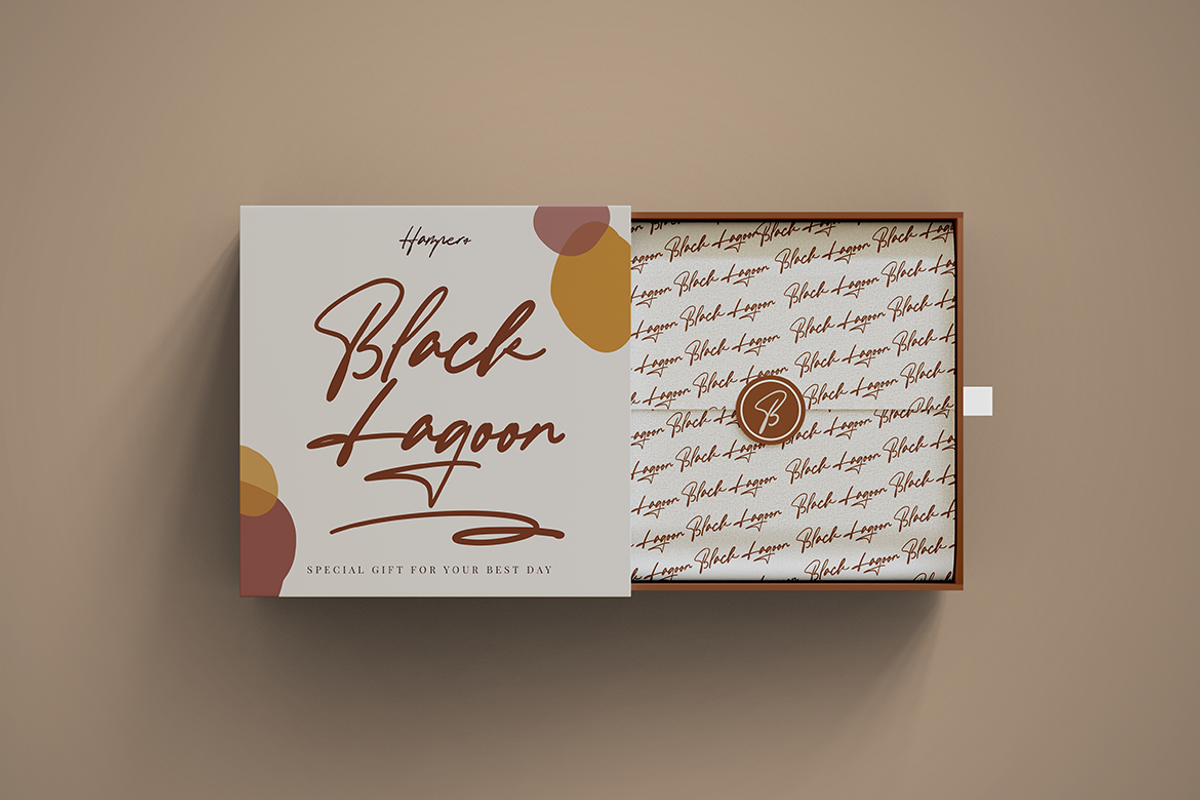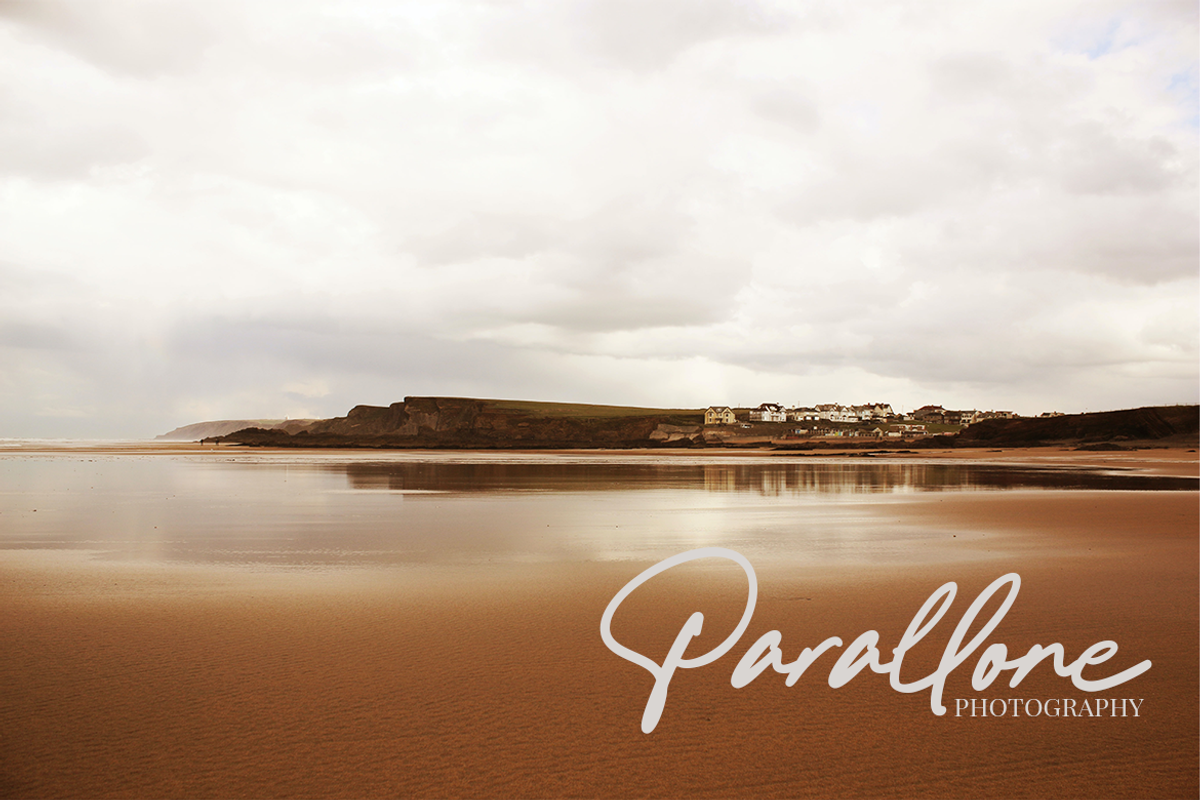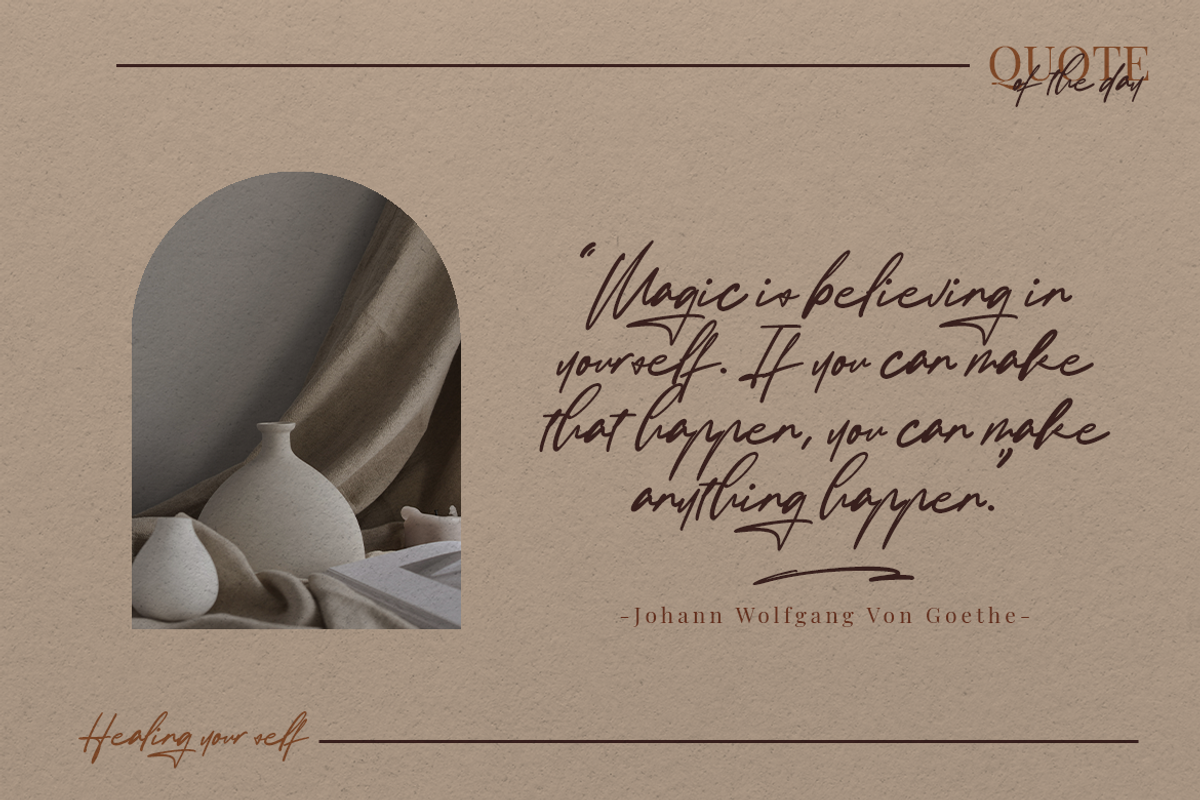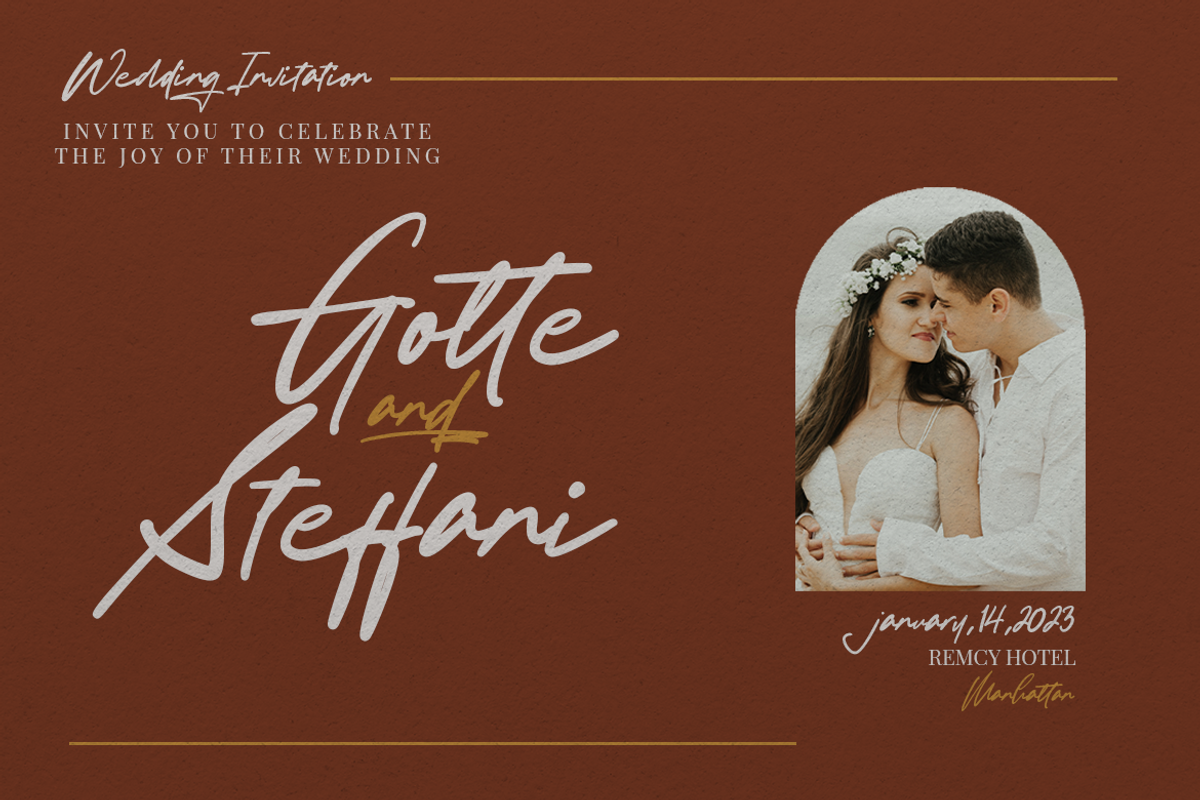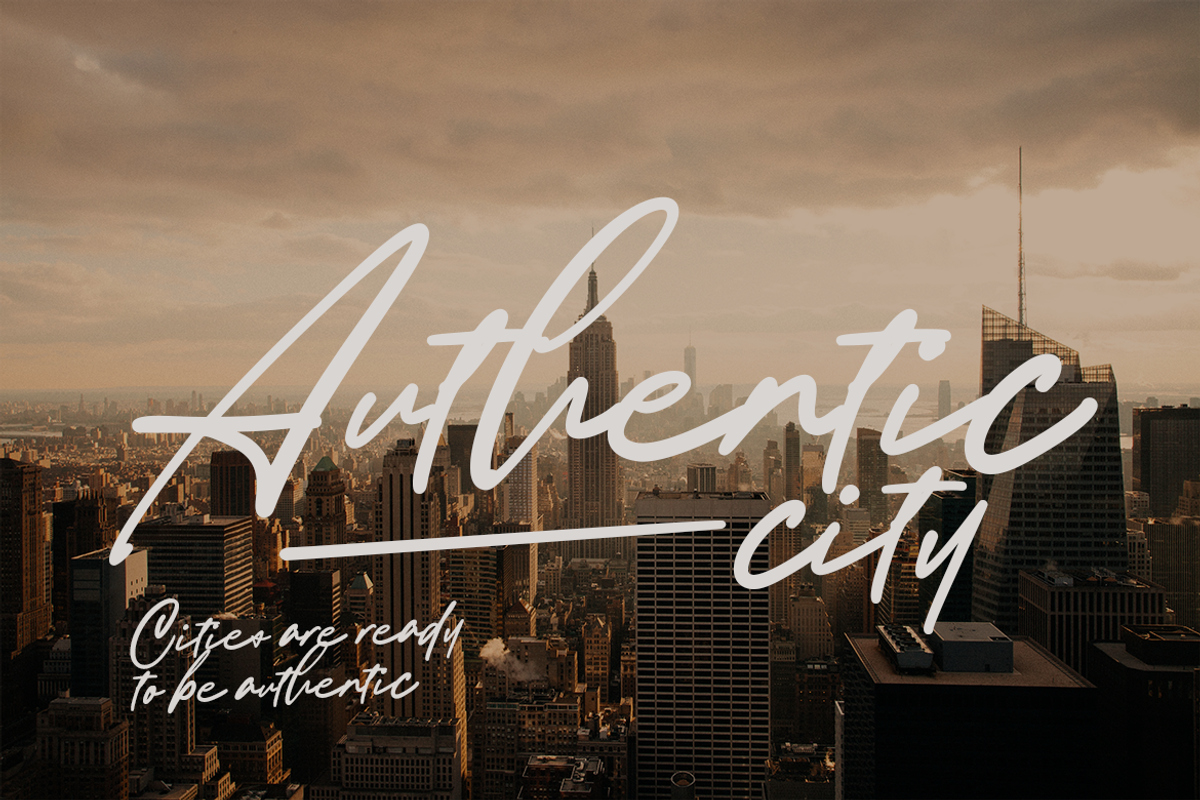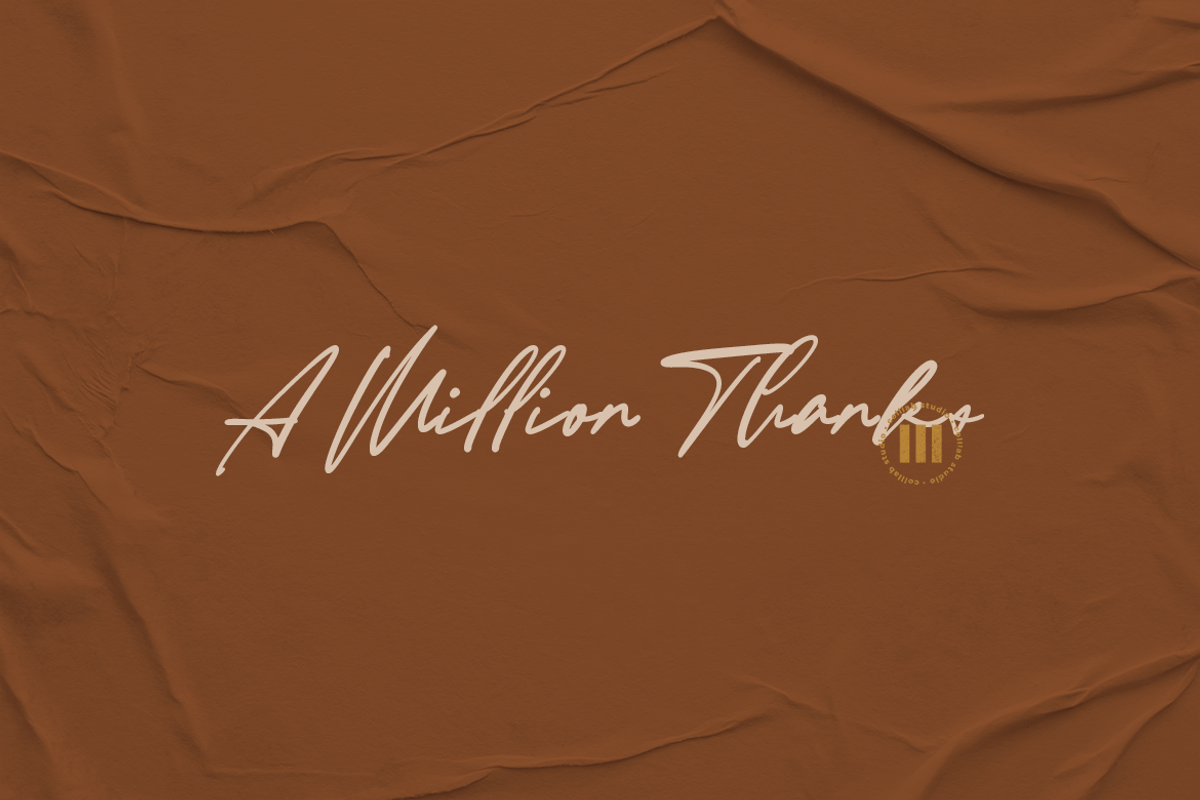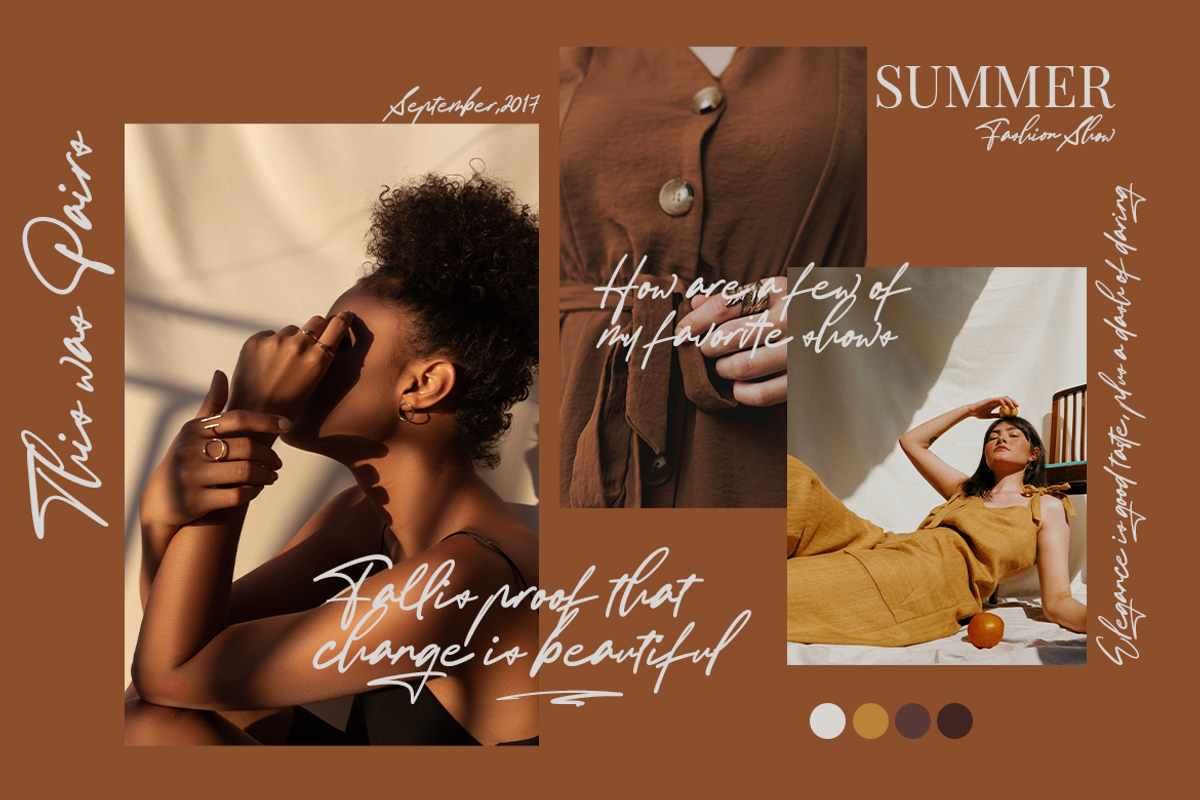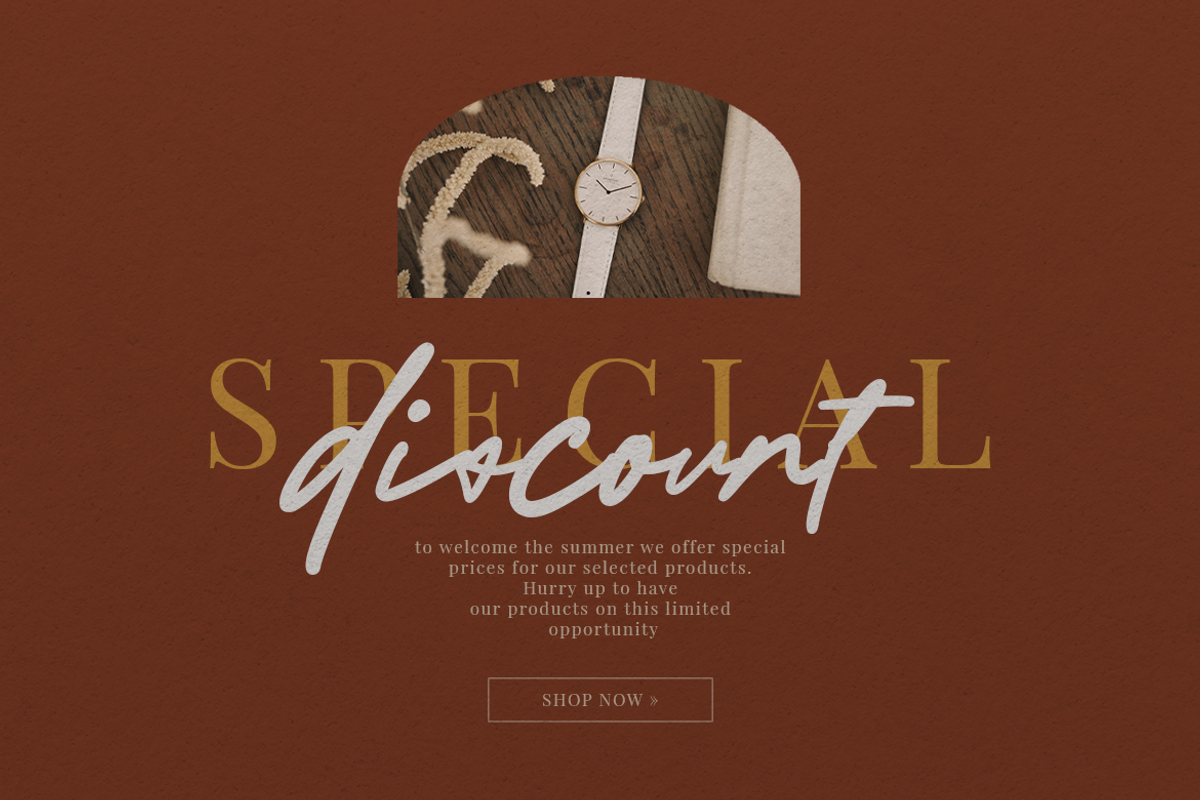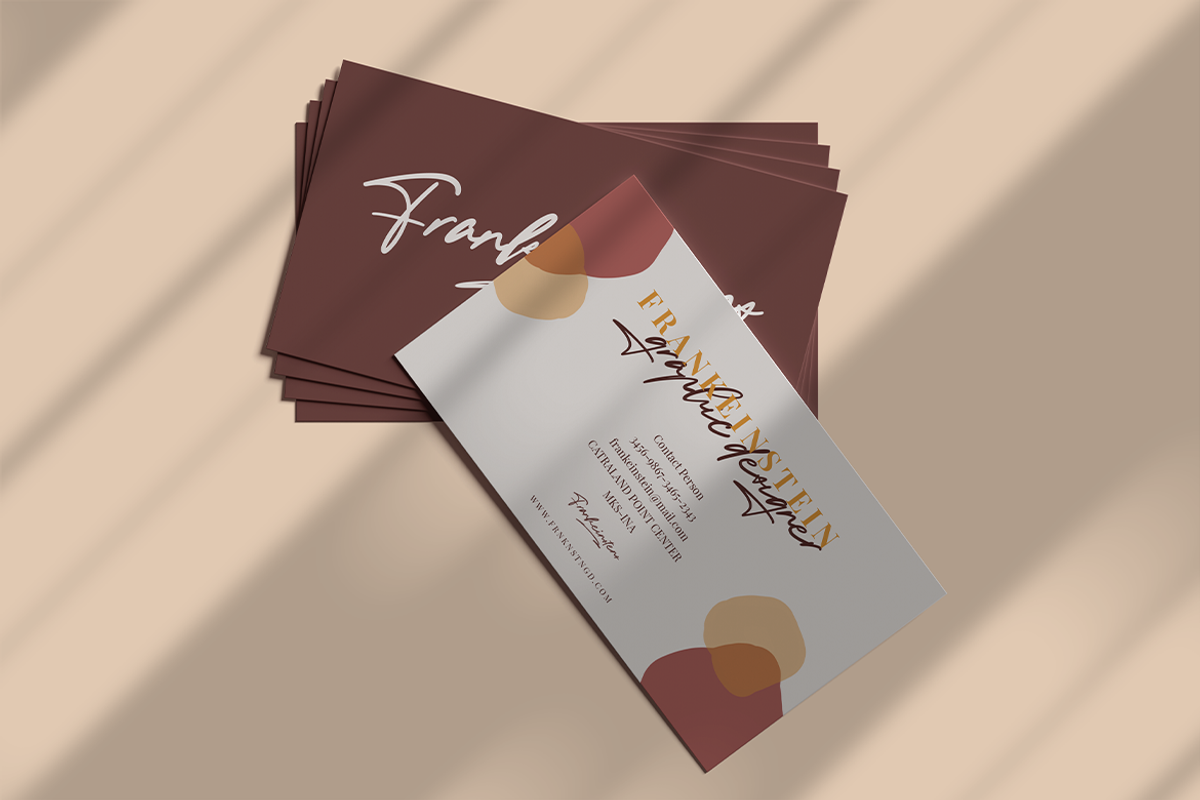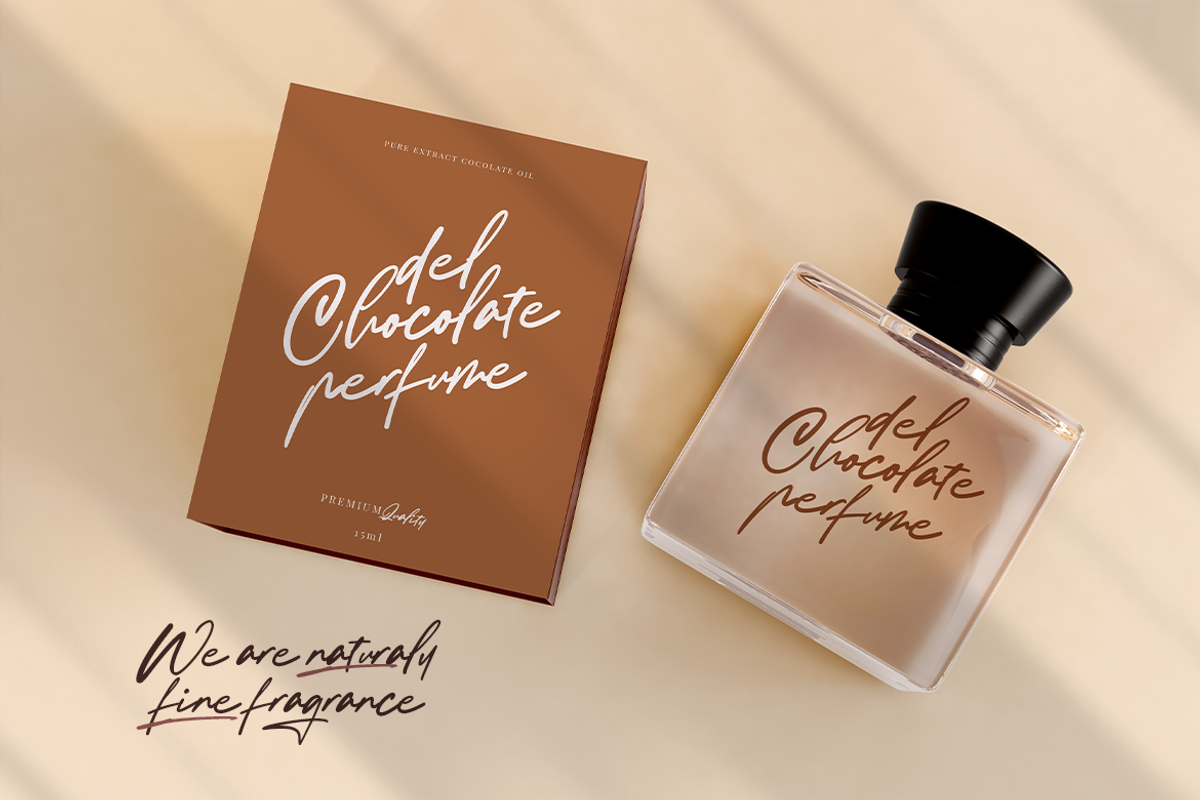
Black Lagoon | An Authentic Script
Fonts are everywhere, but nowhere in particular. They make the world go around, but have trouble when it comes to their authenticity. Thankfully, there is a way to get fonts with that hand-made touch.
Introducing Black Lagoon - an authentic handwritten font that’ll give your projects that handwritten quality without you needing to spend hours penning each letter out by hand.
- 20+ Ligatures & stylistics alternates